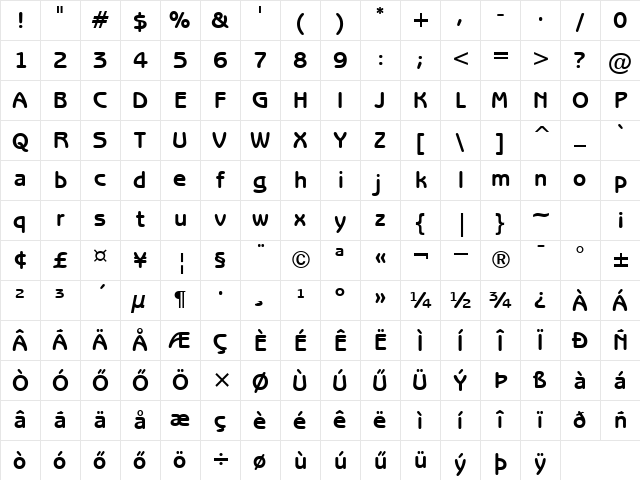
H_Benguiat Gothic BT Bold
H_Benguiat Gothic BT Family
Complete H_Benguiat Gothic BT Bold glyph index. Displaying only characters natively supported by H_Benguiat Gothic BT Bold font.
Design Context for H_Benguiat Gothic BT
H_Benguiat Gothic BT takes a clean, functional approach - its unadorned letterforms prioritise legibility and work reliably across screen and print environments. Its bold stroke weight gives it real presence on the page.
Font Pairing: Use H_Benguiat Gothic BT for headlines alongside a lighter-weight sans or serif for body copy to establish clear visual hierarchy.
Pro Tip: Use H_Benguiat Gothic BT for UI labels, navigation, and short-form body copy where clean legibility is the priority.